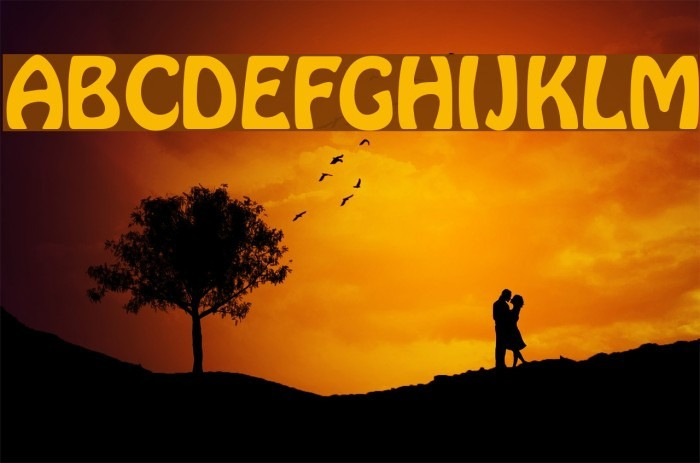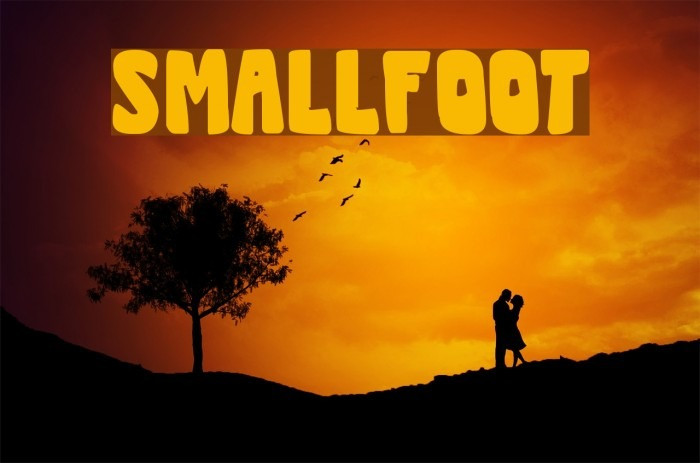
Smallfoot Display Font, Logo from the Smallfoot (2018) movie by Warner Animation.
Smallfoot Font
| Designer Name: | NubeFonts |
| Classification: | Display Fonts, Playful / Fun Fonts |